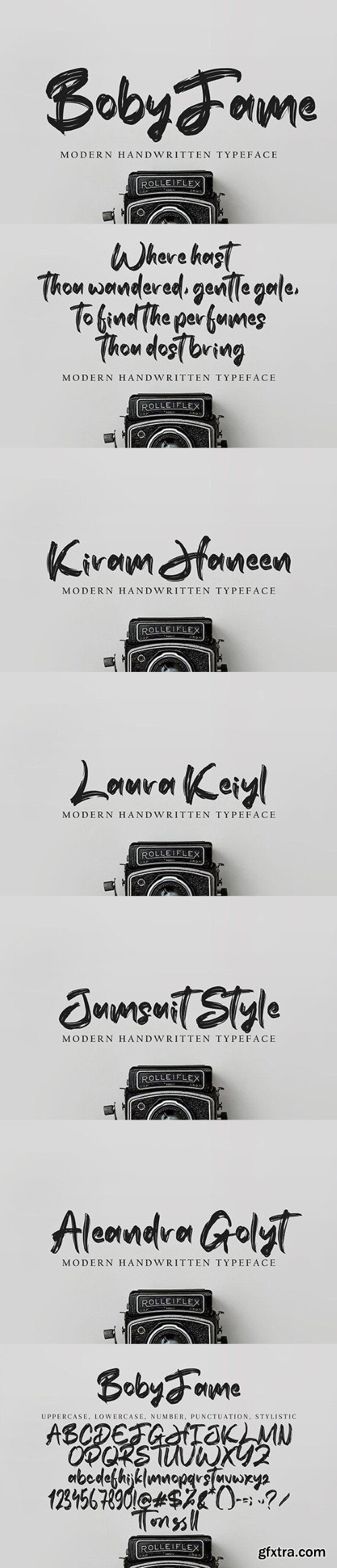
宝蓓 fame 字体
BobyFame with new style, this font will perfect for many different project ex: quotes, logo, blog header, poster, banding, letter, invitation, stationery, etc…